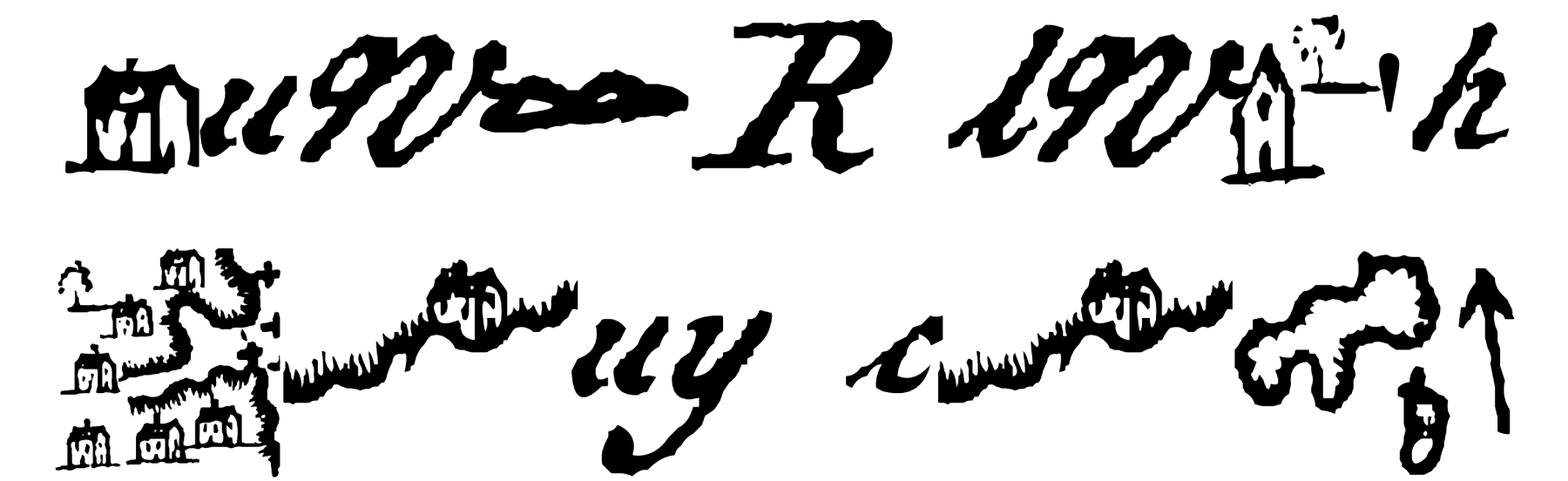
OUTLAW STARS FONT
OUTLAW STARS is a horror font from our Fancy collection, a good fit for Halloween flyers, horror movie titles and game covers. Imagex designed it.
It comes in one style, Regular, with 236 glyphs.
You can type every capital letter from A to Z and every small letter from a to z, plus all ten numbers. Punctuation such as &, !, ? and @ works too. Its accented letters cover Spanish, French, German, Portuguese and Italian, so you can set text beyond English.